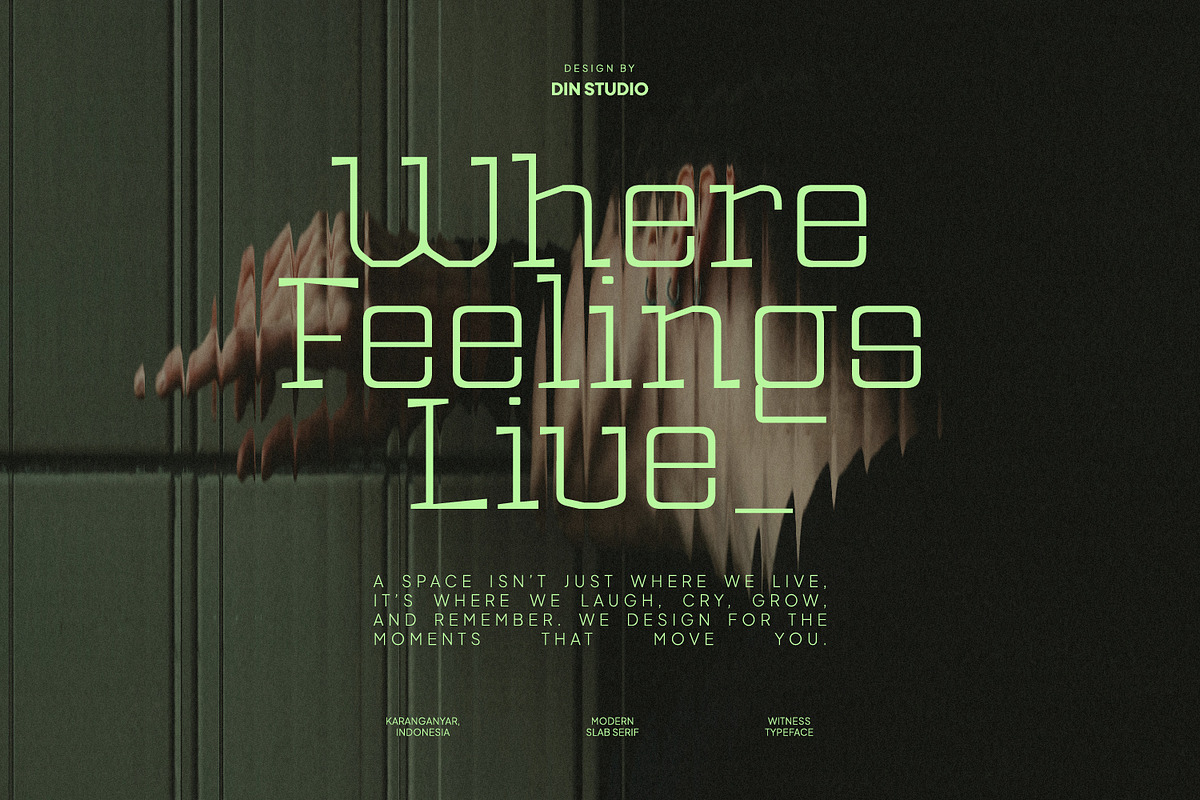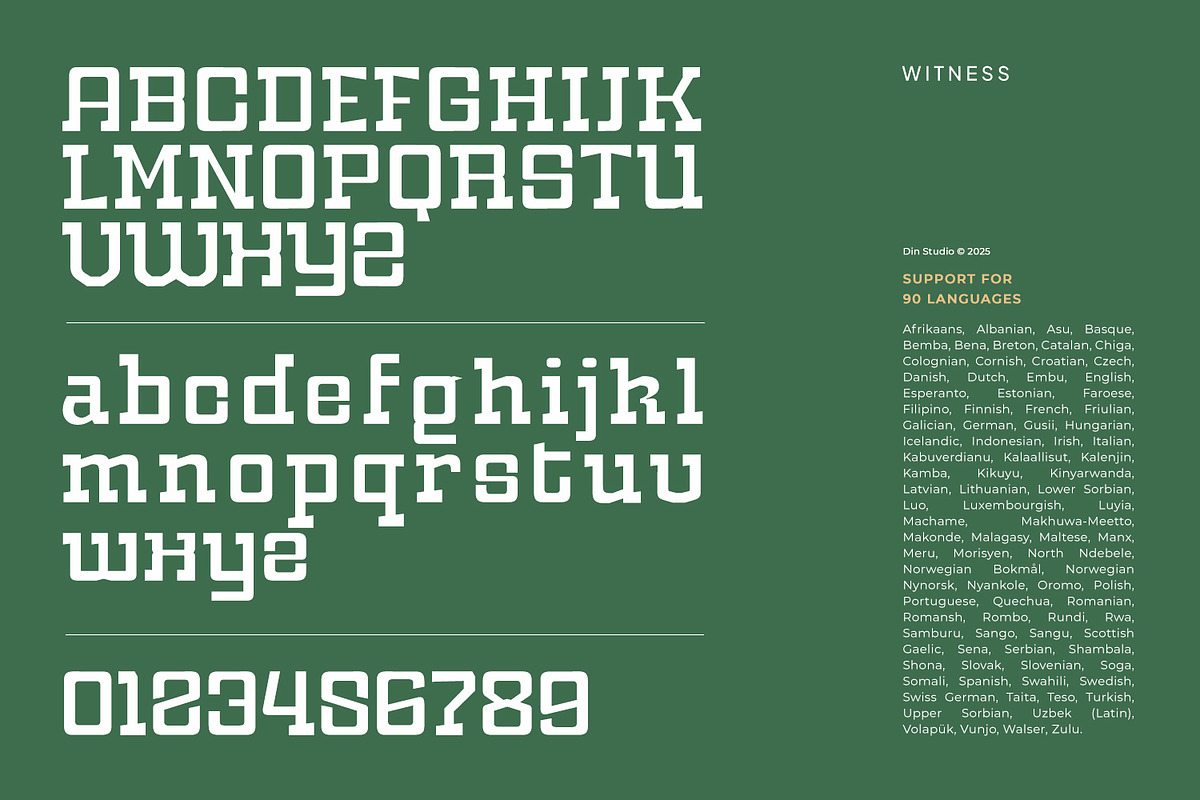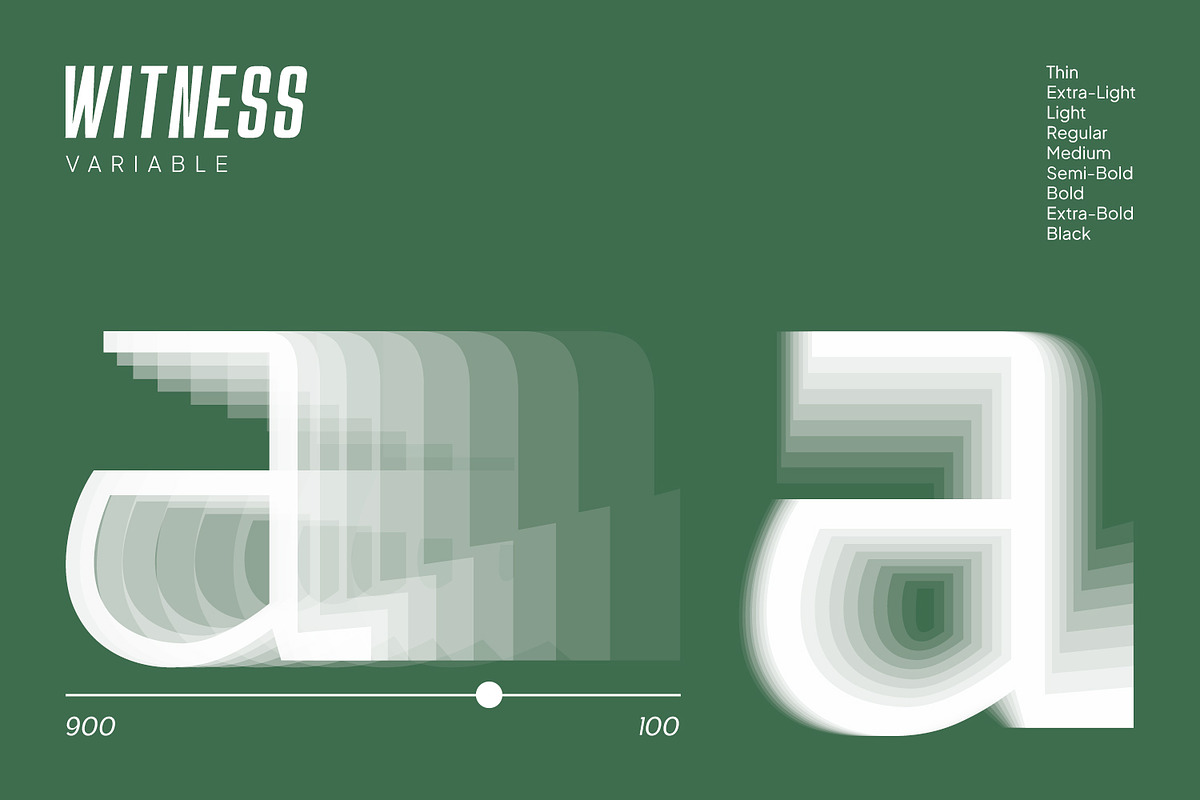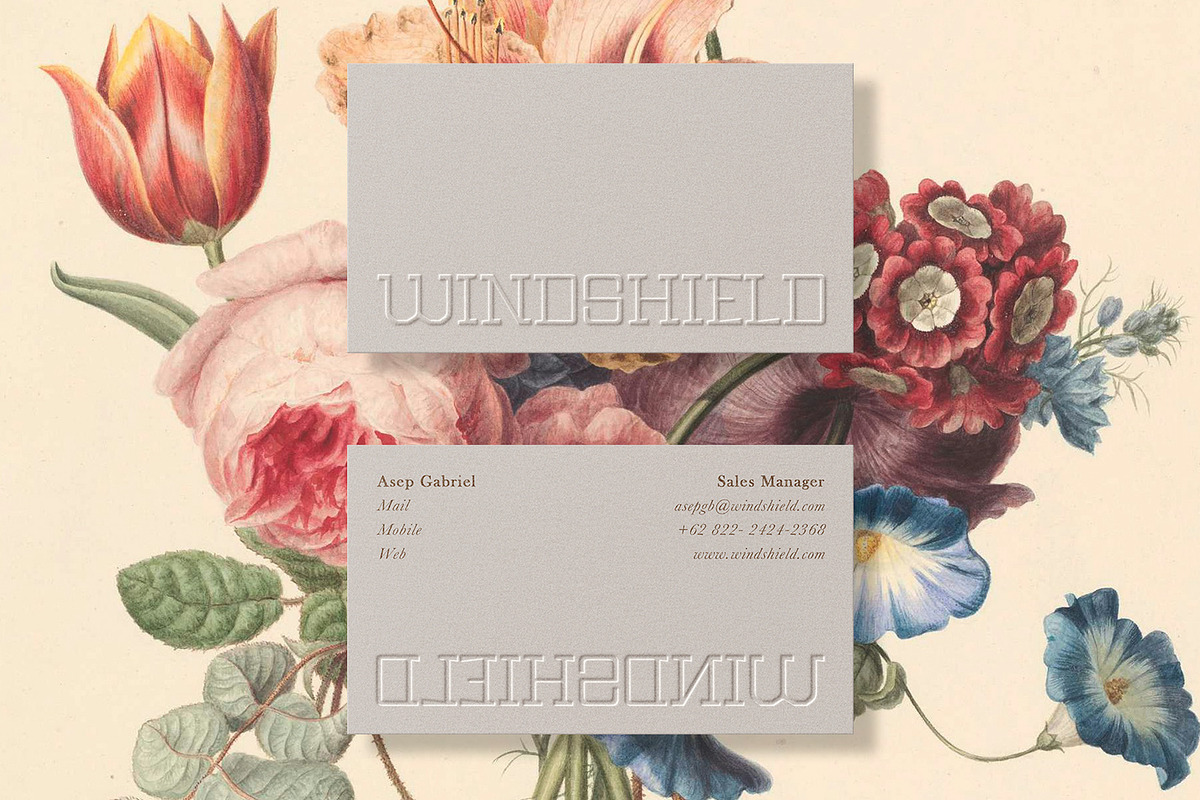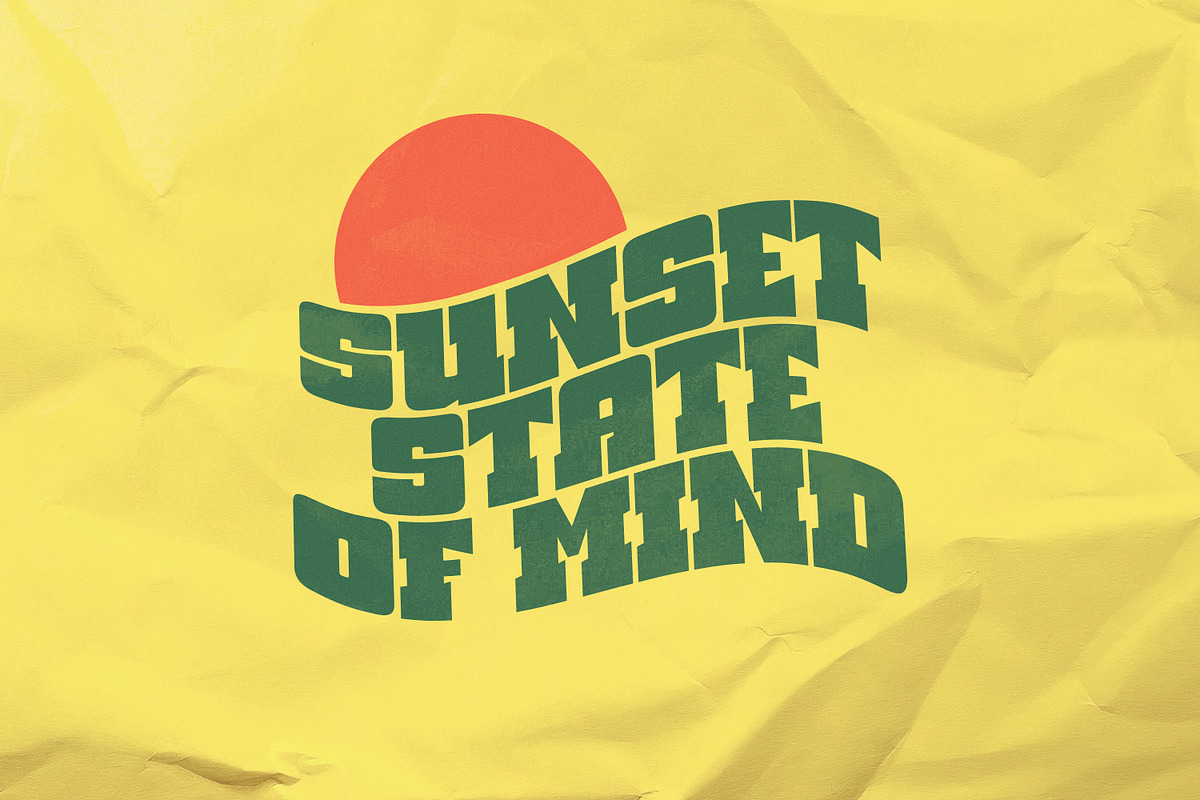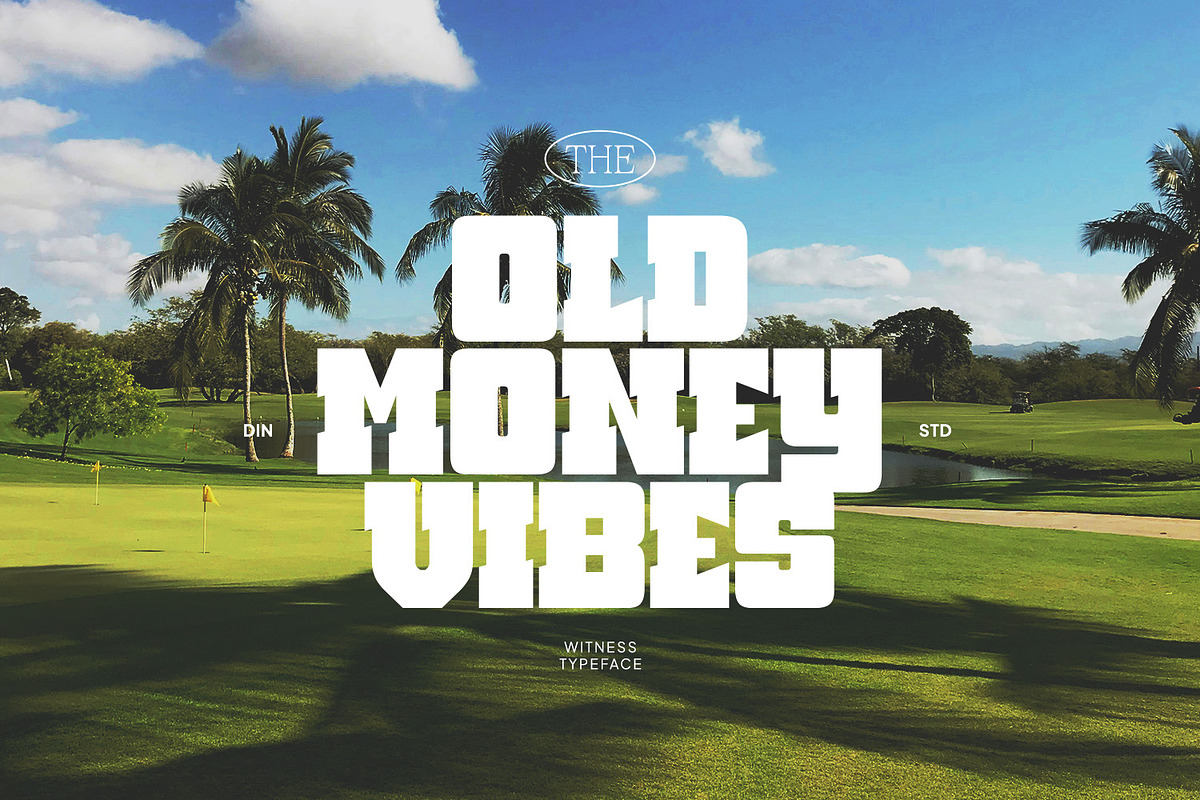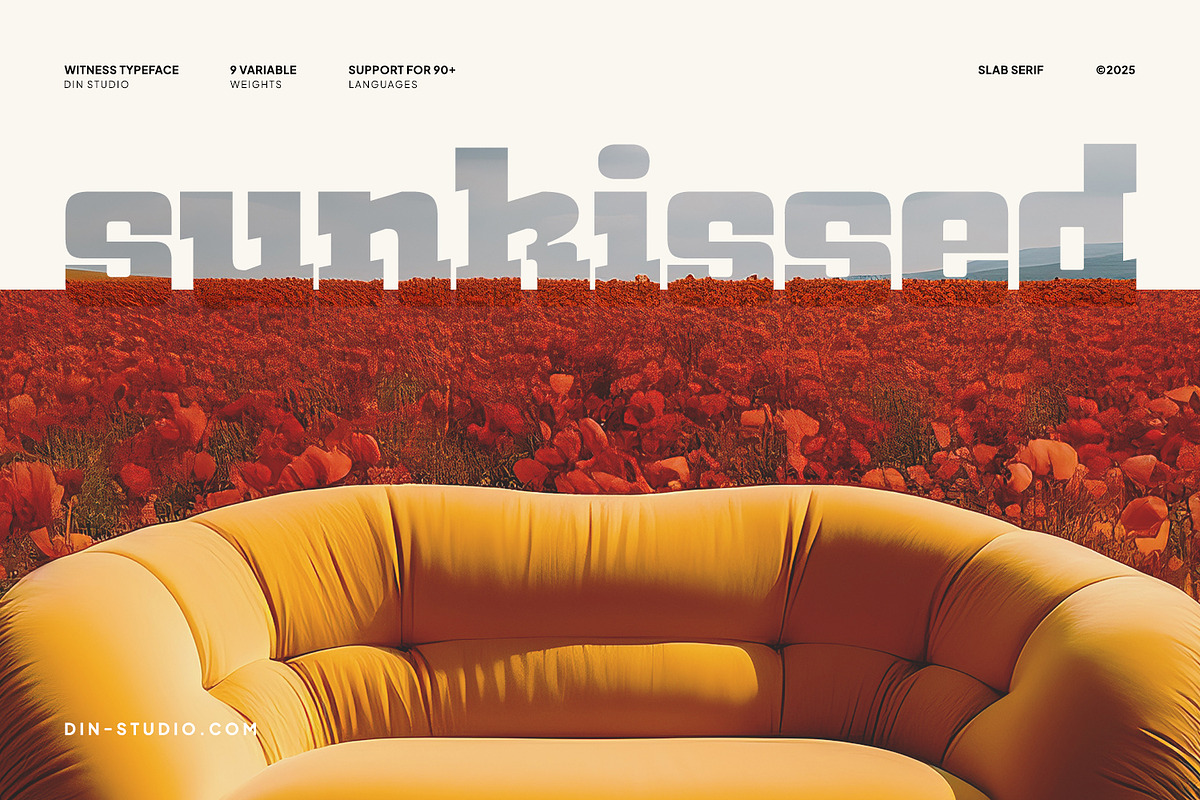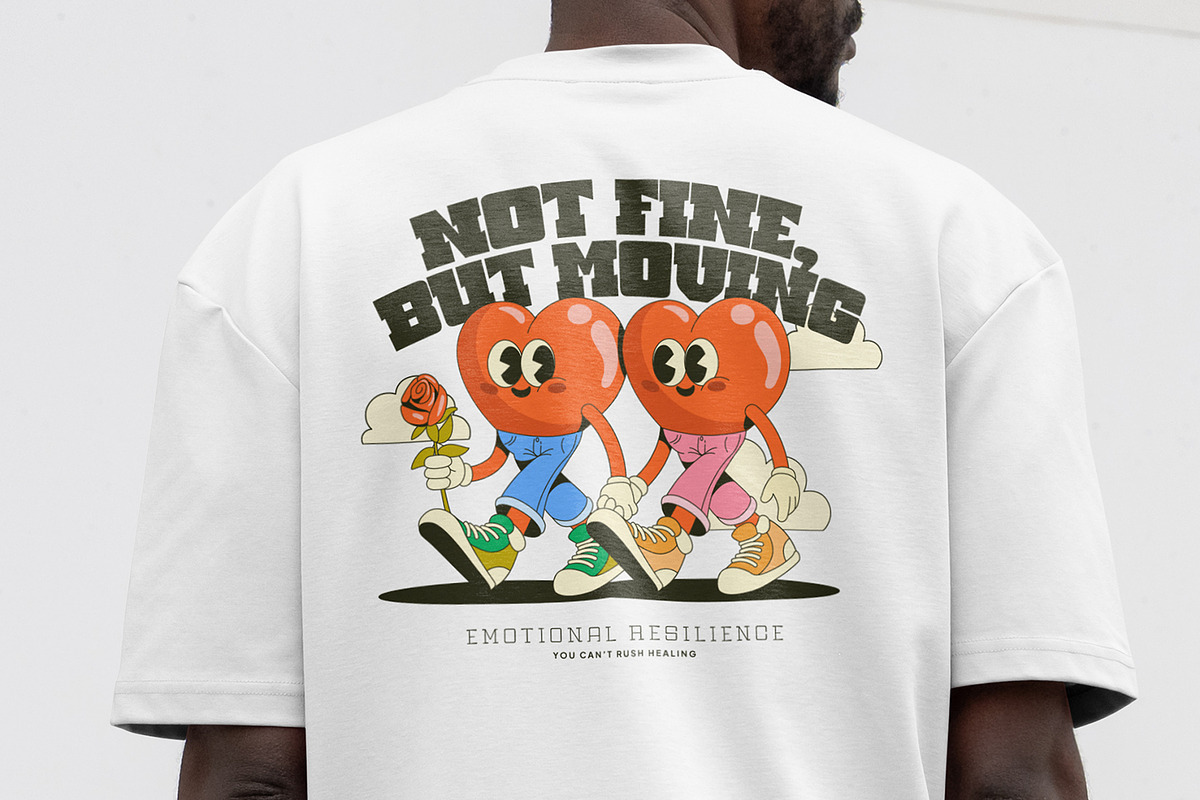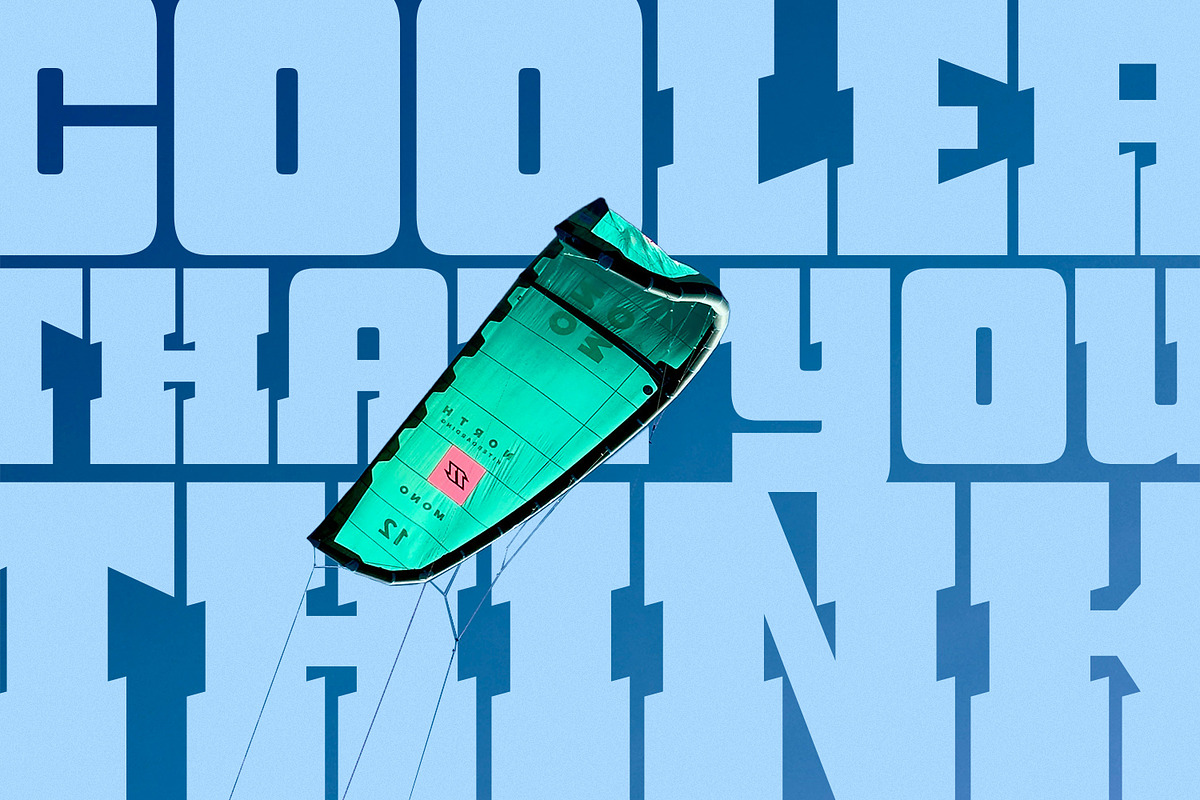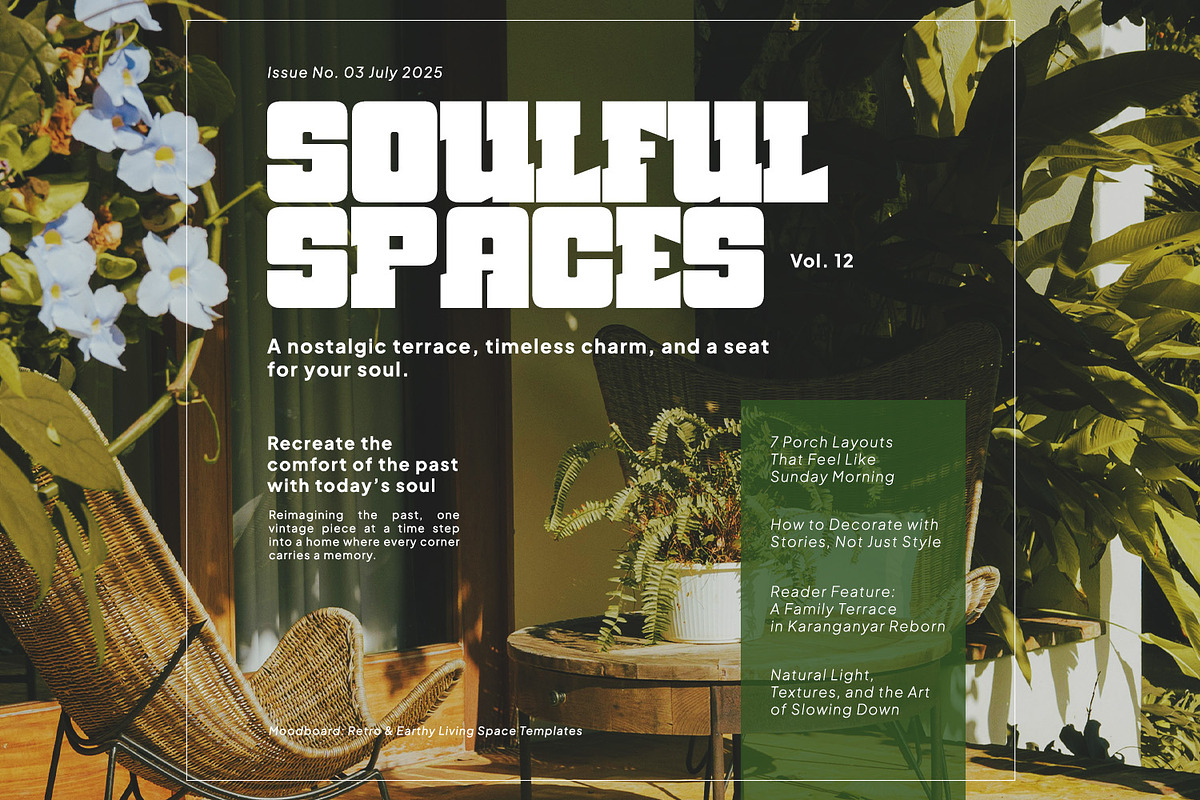
Witness
Witness is a modern slab serif font family that offers designers a perfect balance of boldness, versatility, and contemporary style. Made in nine different weights, from thin to black, Witness gives you complete creative control for any type of project. Each weight has been carefully crafted to maintain excellent legibility and visual harmony across headlines, body text, and display use. The design of Witness stands out through its rounded shapes and sharp angles, creating a distinctive look that feels both approachable and confident. In addition, enjoy the features here.
- Stylistic Sets
Witness fits in branding, quotes, name cards, apparels, logos, posters, and many more designs. Find out more ways to use this font by taking a look at the font preview.